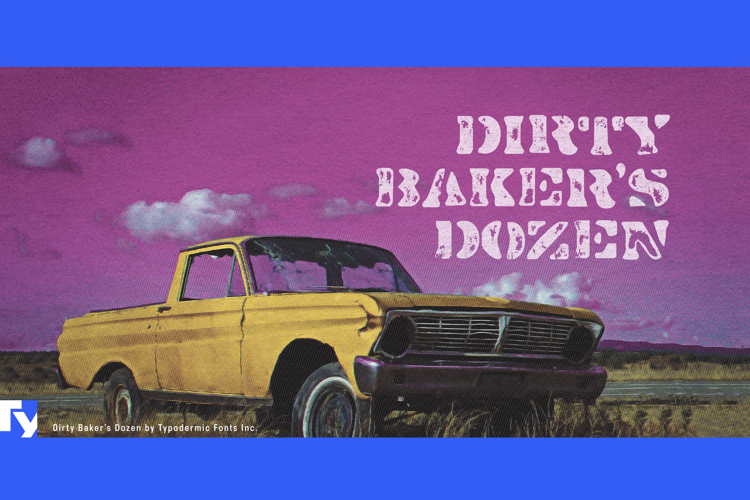
Dirty Baker's Dozen Font
Dirty Baker's Dozen makes heavy stencil damage repeatable across an identity instead of forcing designers to distress each new headline by hand. Its rough industrial surface suits horror games, warehouse events, extreme-sports graphics, survival branding, album art, posters, props, and packaging that needs consistent destruction.